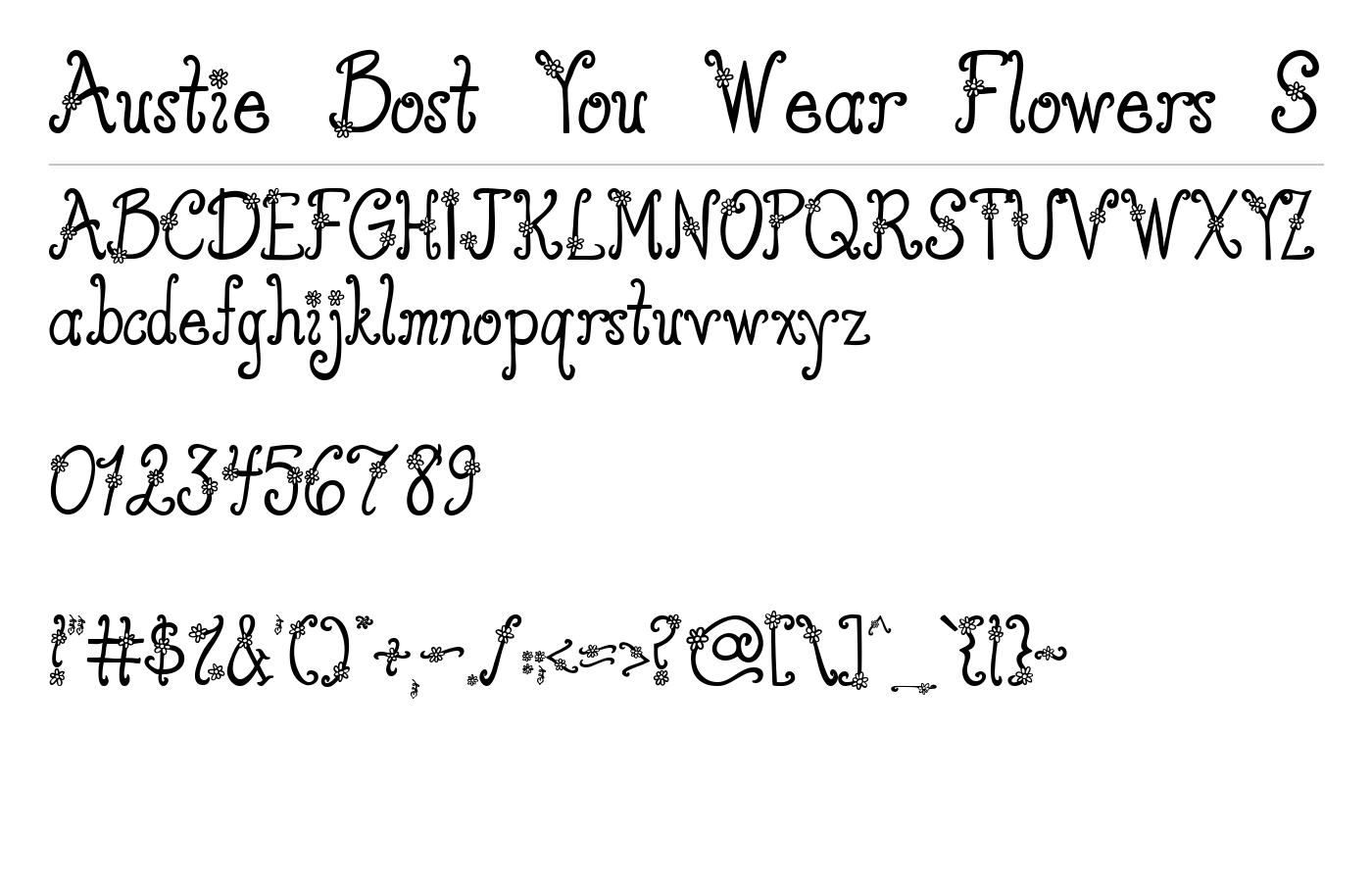
Austie Bost You Wear Flowers S is a playful handwritten font with whimsical floral accents integrated into most characters, giving it a lighthearted and charming feel. Its narrow letterforms and delicate, curly strokes create a decorative and informal style, perfect for fun, creative projects like greeting cards, children's books, or boutique branding. This font works best where a warm, friendly, and unique personality is desired.
Austie Bost You Wear Flowers S Font
About Austie Bost You Wear Flowers S Font
| Font family | Austie Bost You Wear Flowers S Font |
| Designer | Austin Owens |